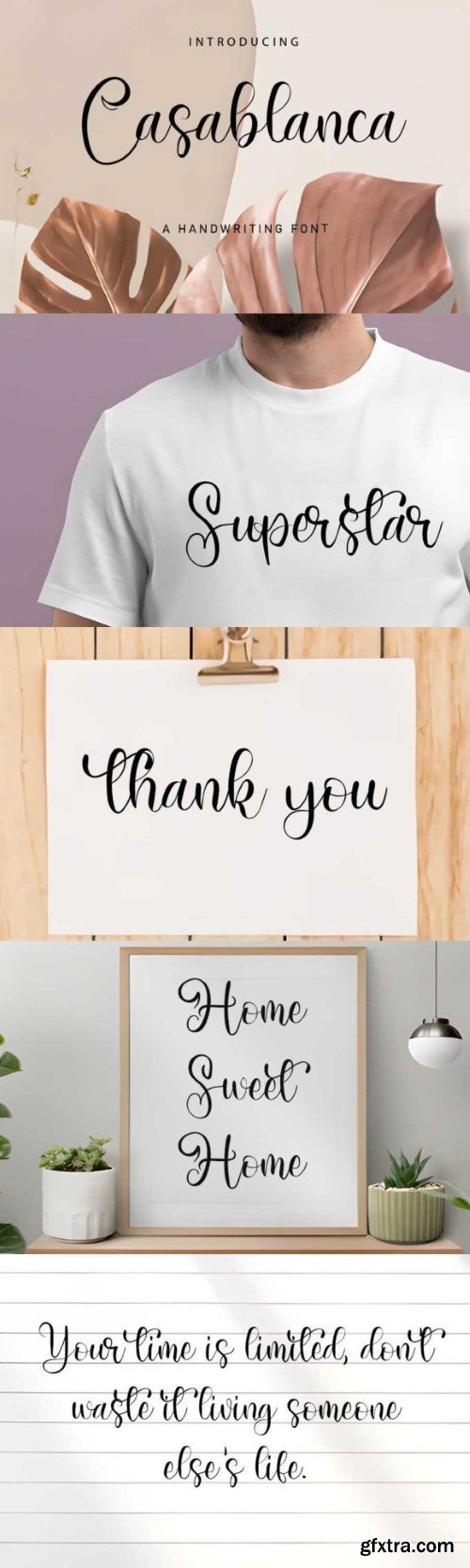
卡萨布兰卡字体
Casablanca is a modern and classy calligraphy font, that comes with beautiful ligatures and lovely alternates. Casablanca has a very beautiful stroke and it will suit various wedding invitations, fashion cards, and more.